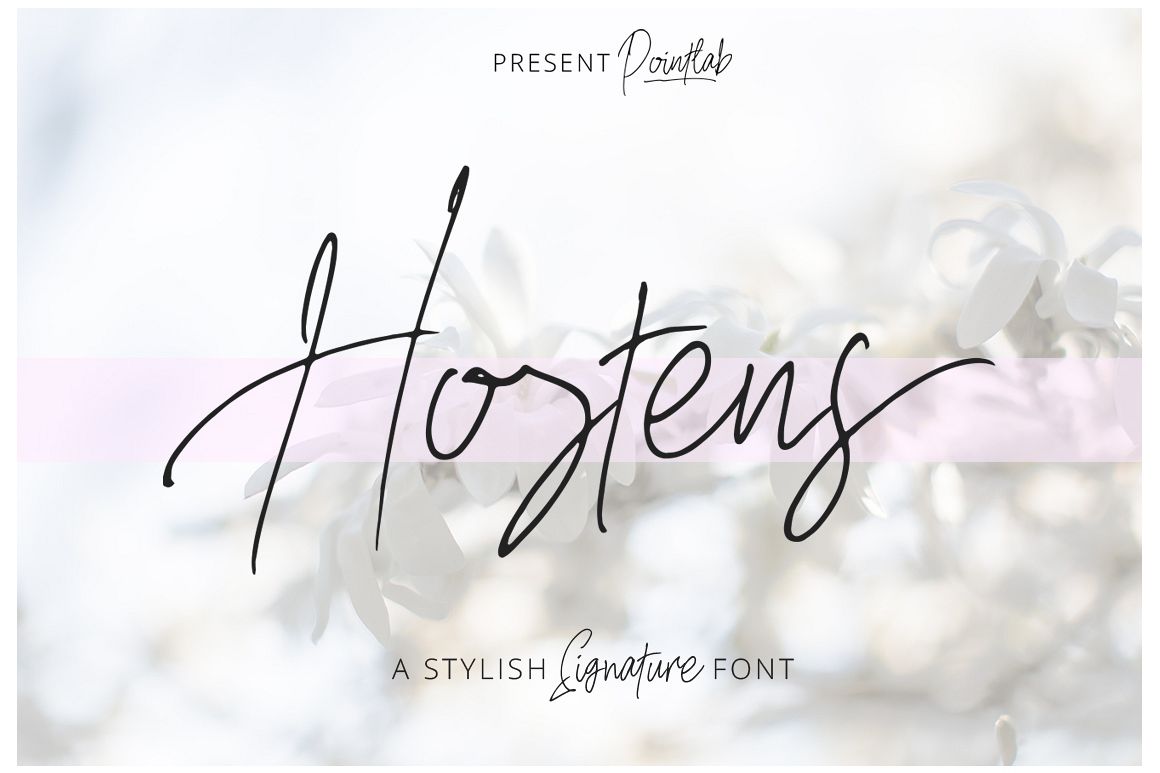
Hostens Signature
IntroducingHostens Signature a new fresh & modern script with a handmade calligraphy style, decorative characters and a dancing baseline! So beautiful on invitation like greeting cards, branding materials, business cards, quotes, posters, and more!!Hostens Signature come with 545 glyphs. The alternative characters were divided into several Open Type features such as Swash, Stylistic Sets, Stylistic Alternates, and Ligature. The Open Type features can be accessed by using Open Type savvy programs such as Adobe Illustrator, Adobe InDesign, Adobe Photoshop Corel Draw X version, And Microsoft Word. And this Font has given PUA unicode (specially coded fonts). so that all the alternate characters can easily be accessed in full by a craftsman or designer.Hostens Signature Features :Uppercase & Lowercase International Languange & Symbols Support Punctuation & Number PUA Unicode Range Standard Ligatures Discretionary Ligatures Stylistic Alternates Stylistic Set 1-11 Character Swash Bonus The ZIP file are include the following :Hostens Signature.OTFHostens Signature.TTFIf you don't have a program that supports OpenType features such as Adobe Illustrator and CorelDraw X Versions, you can access all the alternate glyphs using Font Book (Mac) or Character Map (Windows).For use in office word, you all can read the following article.http://www.magpiepaperworks.com/blog/using-opentype-fonts-in-microsoft-word/To Access AlternateCharacters Click The Link Below:https://www.youtube.com/watch?v=geL0Ye02Ryk How to access alternates in Adobe illustrator CChttps://www.youtube.com/watch?v=V25yiUh8BcE How to access alternates in Ms Wordhttps://www.youtube.com/watch?v=HxkhZiCuwEw How to access alternates in Coreldraw X7https://www.youtube.com/watch?v=UBVsufJjons How to access alternates in Adobe Photoshop CChttps://www.youtube.com/watch?v=BYKXl58AdNY How to access alternates in Indesign CShttps://www.youtube.com/watch?v=HgZTCxKG14Q  Thanks and happy designing :-)Thank You for purchase!